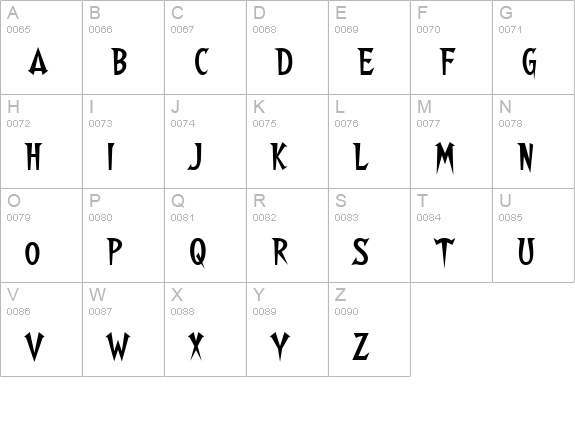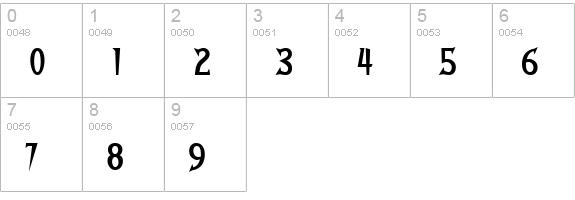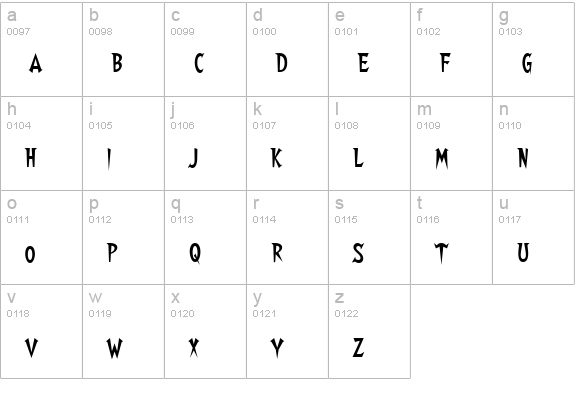
Walshes Font Details
Introducing Walshes font, a stunningly elegant typeface that effortlessly combines classic charm with a contemporary twist. This versatile font is perfect for various design projects, from branding and packaging to editorial layouts and social media graphics. With its delicate curves and graceful lines, Walshes font exudes sophistication and refinement, making it a standout choice for those seeking to elevate their designs to new heights. Its timeless appeal is enhanced by the meticulous attention to detail, ensuring every letter is flawlessly crafted. One of the most remarkable features of Walshes font is that it is available for free! Yes, you read that right. You can download this exquisite font without spending a dime at FontsMarket.com, the go-to website for high-quality fonts. Whether you are a professional designer or a hobbyist, Walshes font will undoubtedly become an invaluable asset in your creative arsenal. Its versatility allows for seamless integration into any project, while its distinctive character adds a touch of elegance and sophistication. So why wait? Head over to FontsMarket.com and experience the beauty and versatility of Walshes font today. Download it for free and unlock a world of endless design possibilities. Don't miss out on this incredible opportunity to enhance your creations with a font that truly stands out from the crowd.